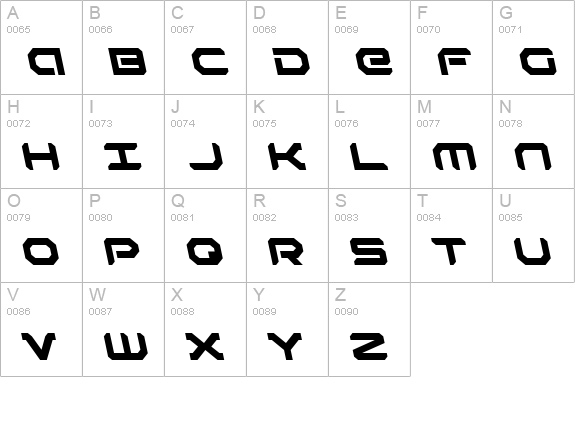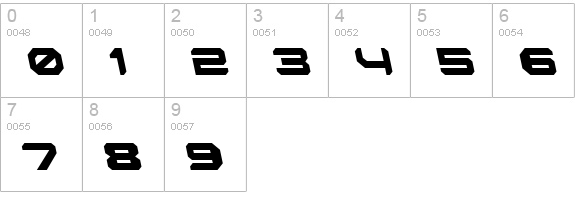
Robotaur Leftalic font is a sleek and modern typeface that combines robotic precision with a touch of artistic flair. Its italicized design gives a dynamic and energetic feel to any text, making it perfect for projects that require a bold and unique look. With its clean lines and futuristic appeal, Robotaur Leftalic is sure to make a statement wherever it is used. Best of all, Robotaur Leftalic font is available for free download at FontsMarket.com. This means that you can easily access this eye-catching typeface without having to spend a penny. Whether you're working on a website, poster, or any other design project, Robotaur Leftalic is a versatile and stylish font choice that will elevate your work to the next level. Download it today and add a touch of innovation to your designs!